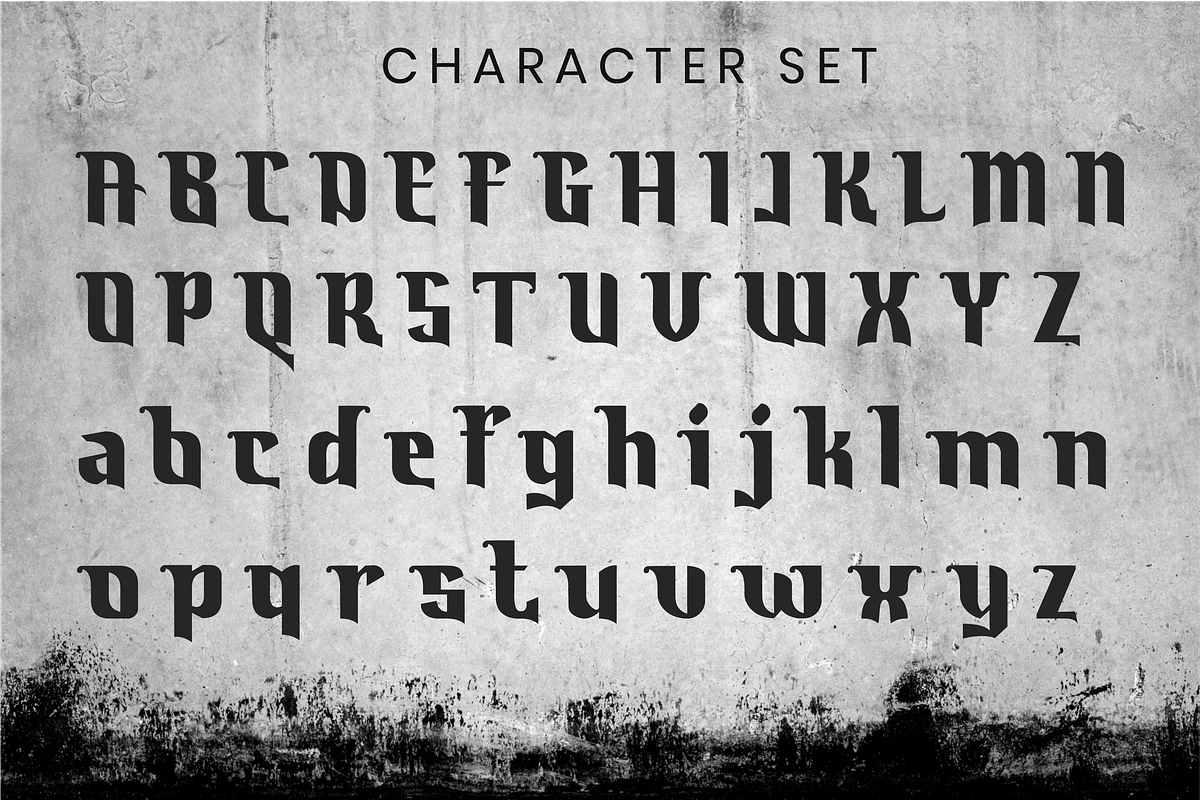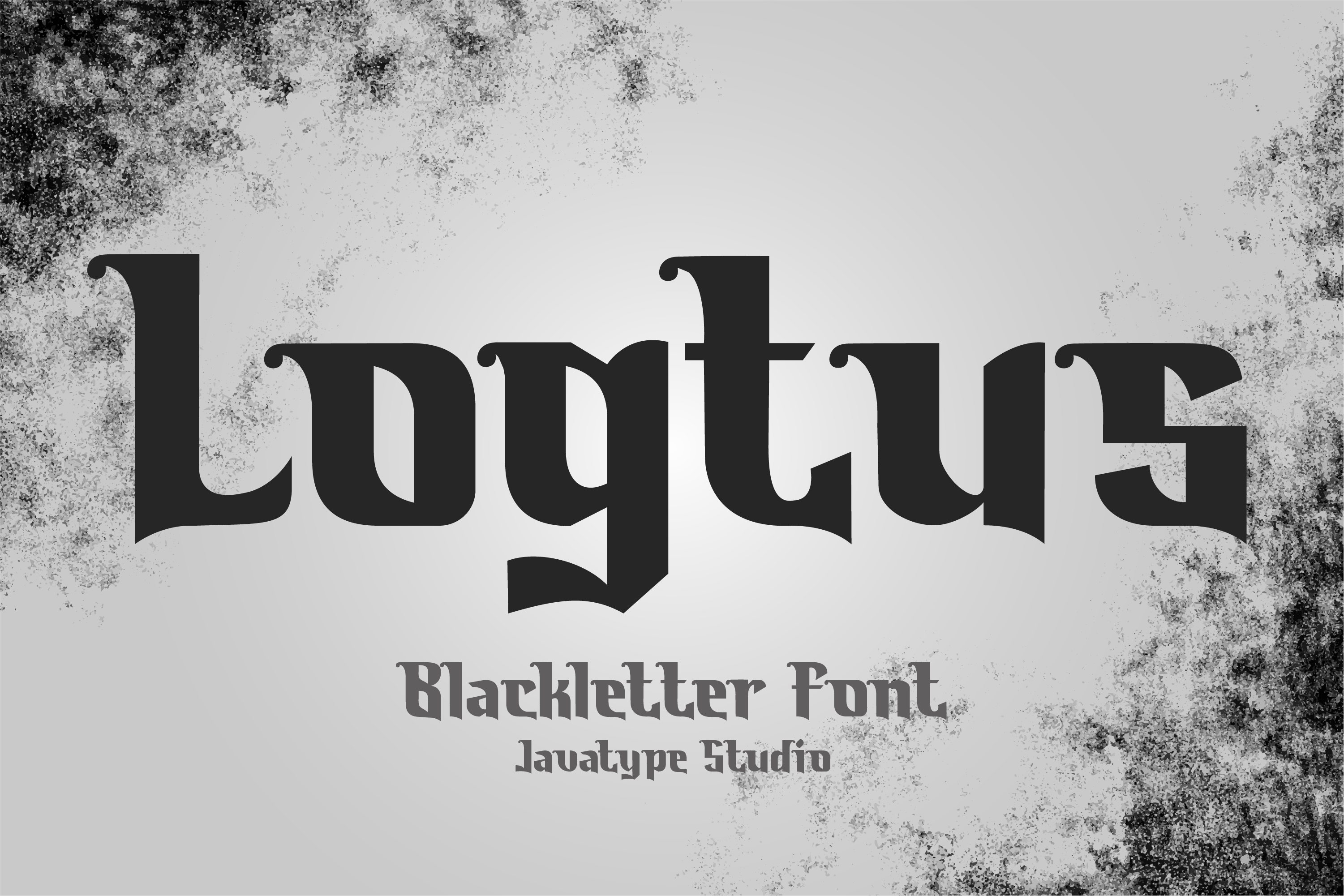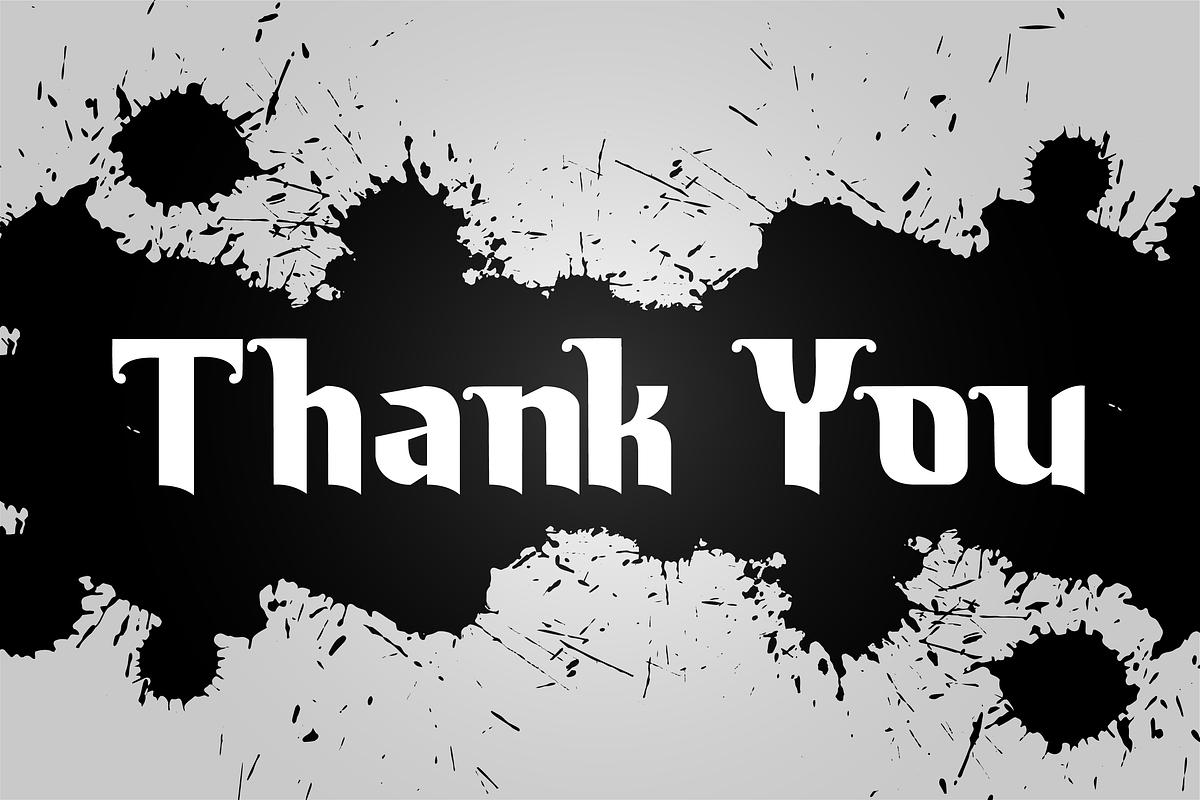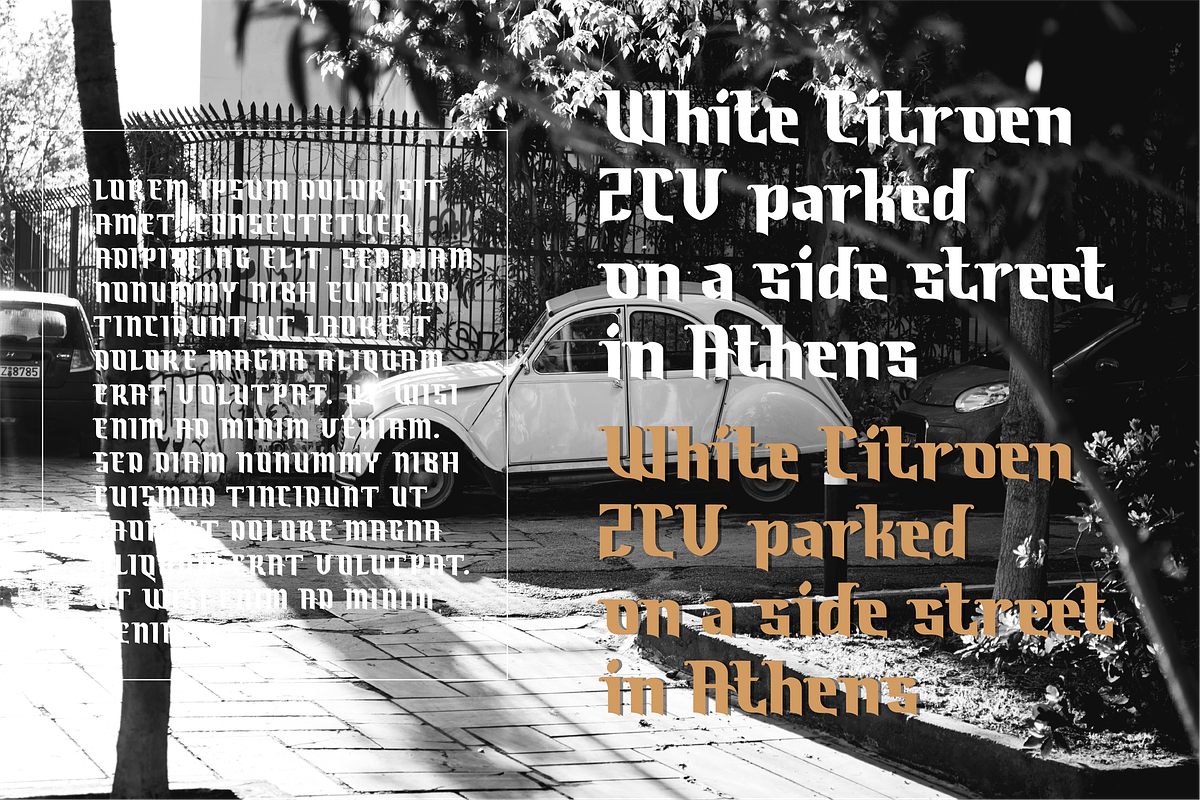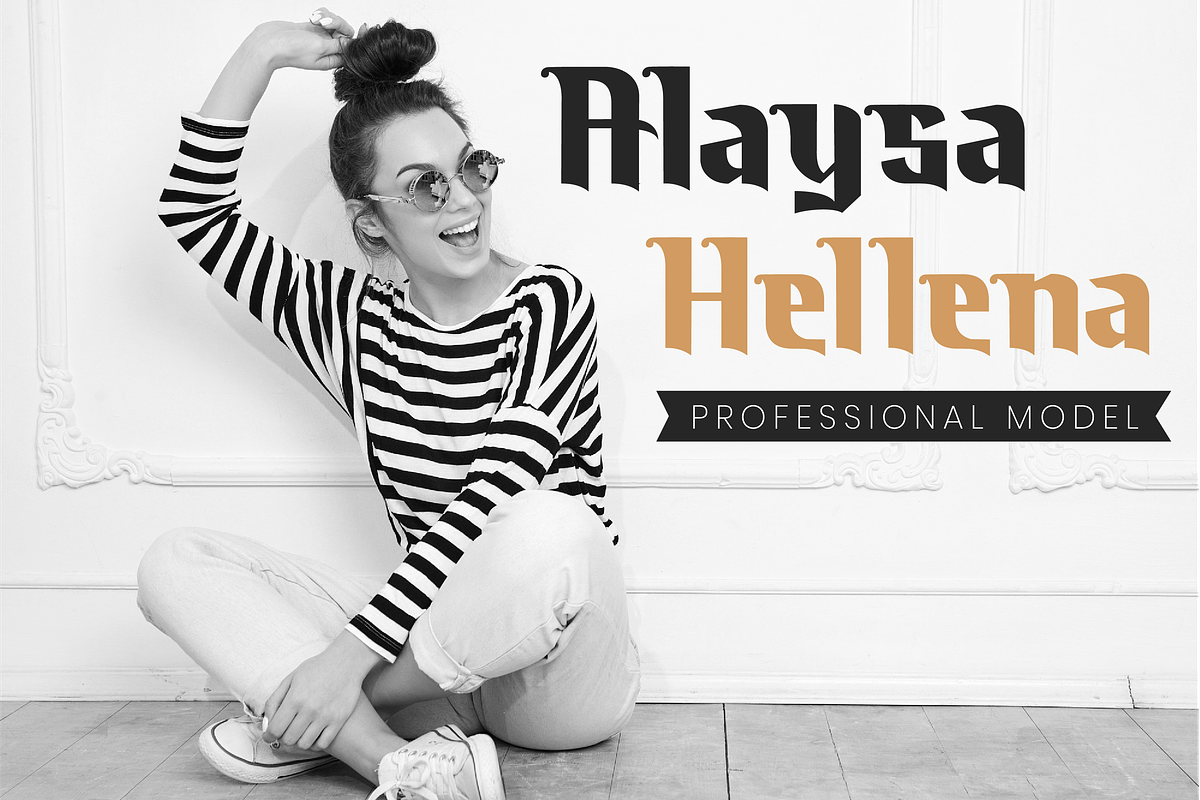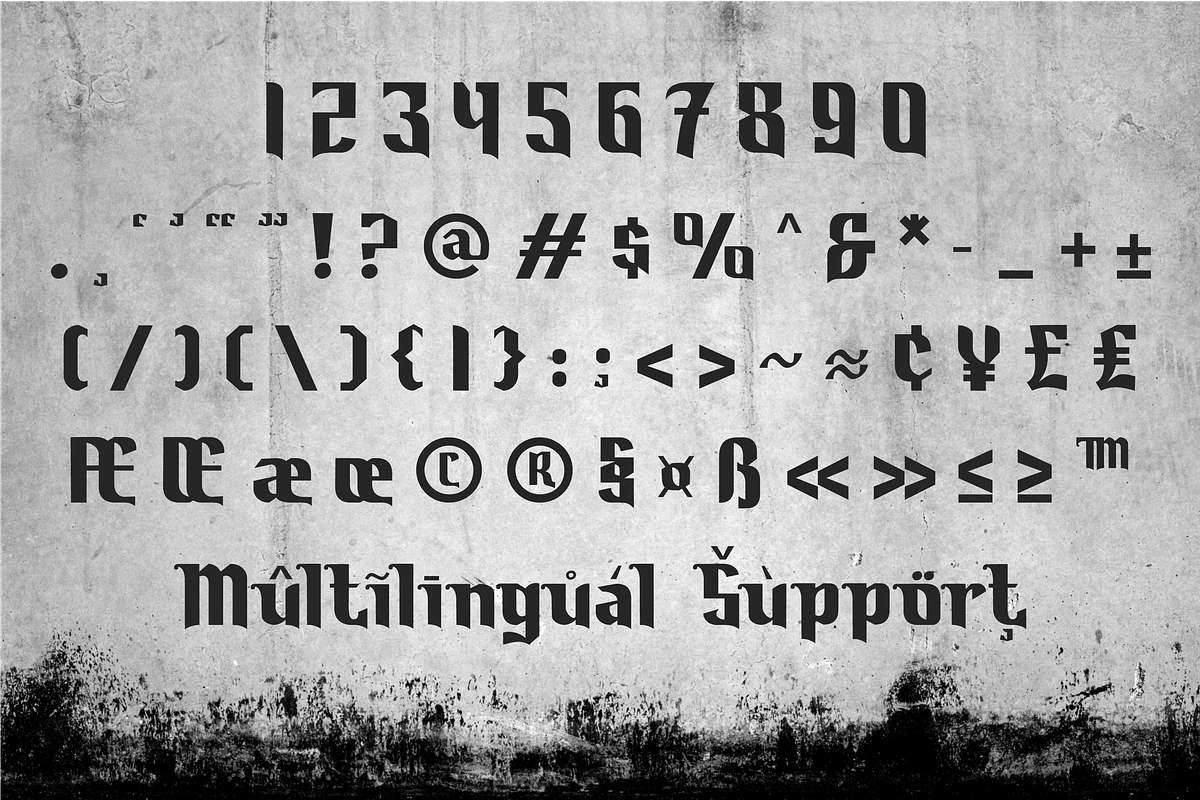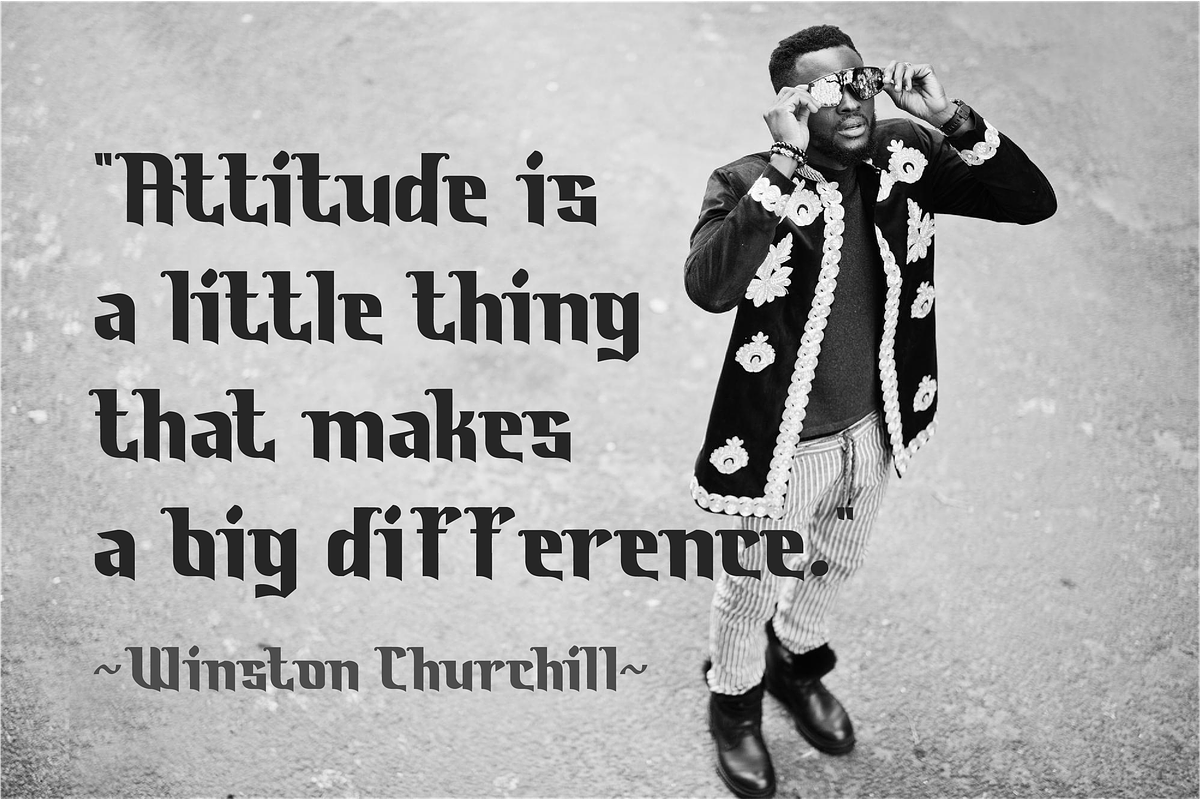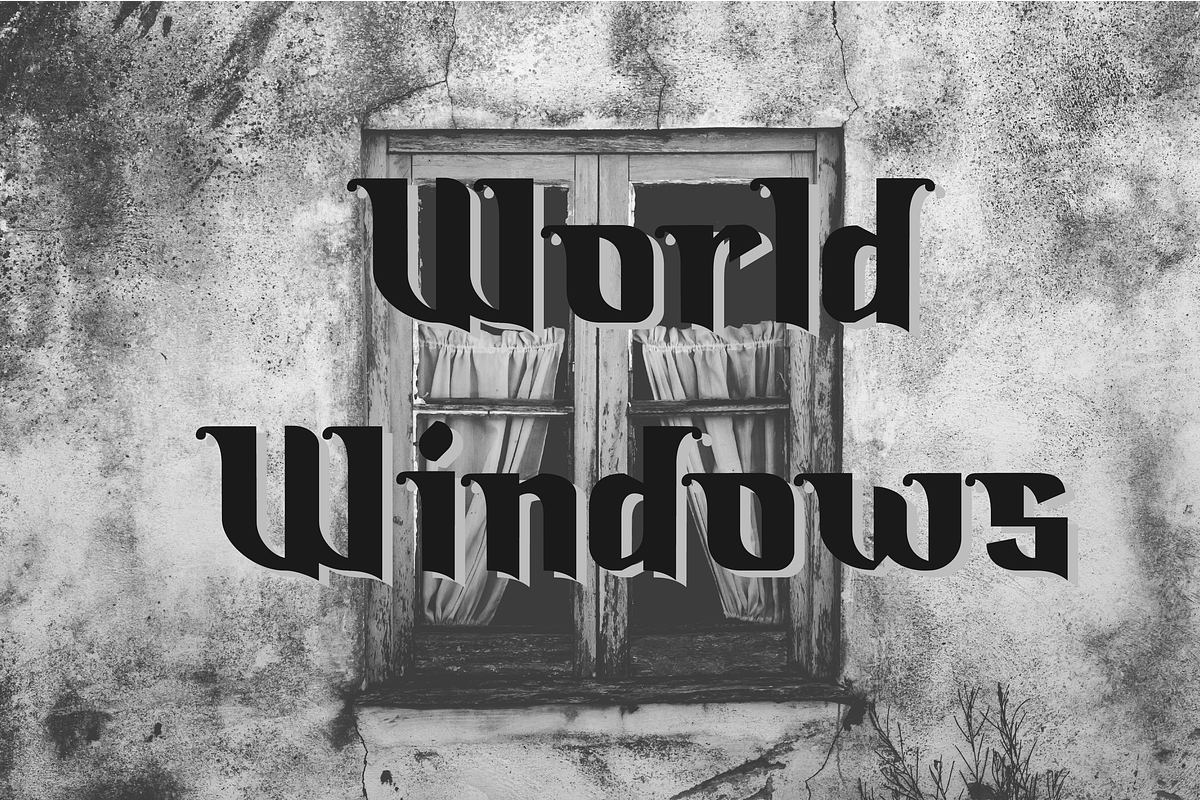
Logtus a Blackletter font
Logtus is a type of blackletter font made in a classic, elegant and modern style. It is perfect of your branding design and your poster, photographer, model, etc. To access the alternate glyphs, you need a program that supports OpenType features such as Adobe Illustrator CS, Adobe Photoshop CC, Adobe Indesign and Corel Draw